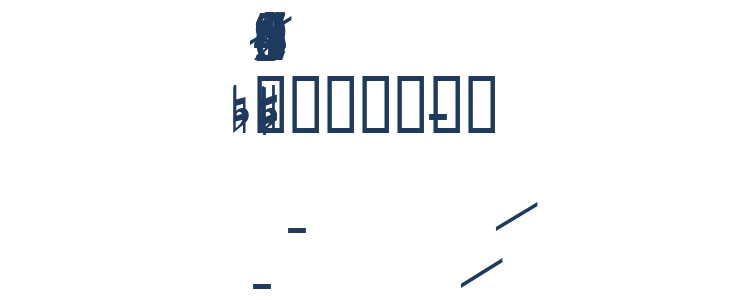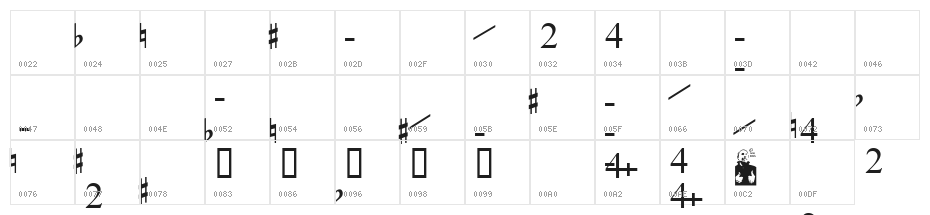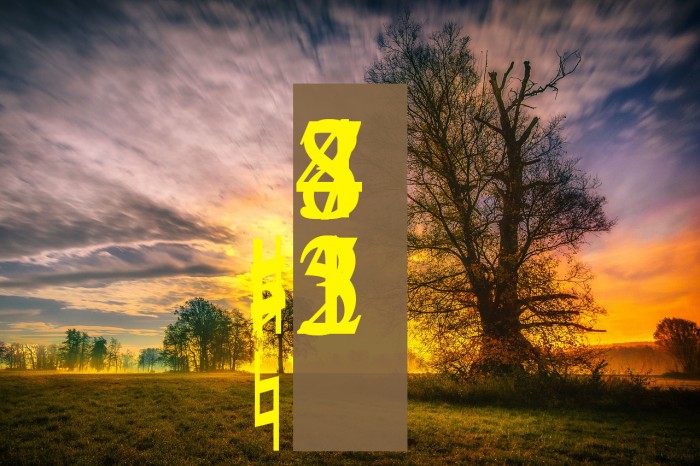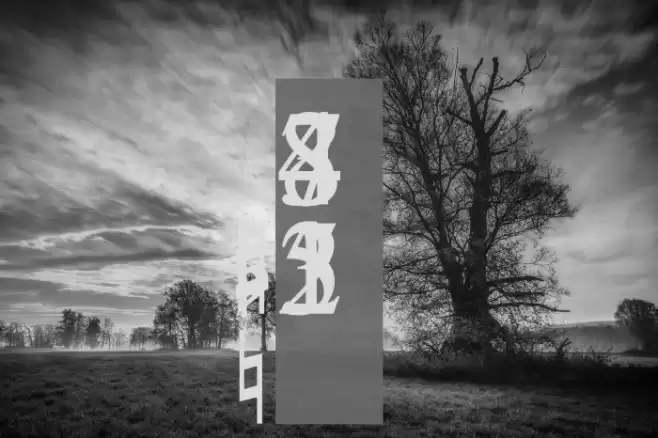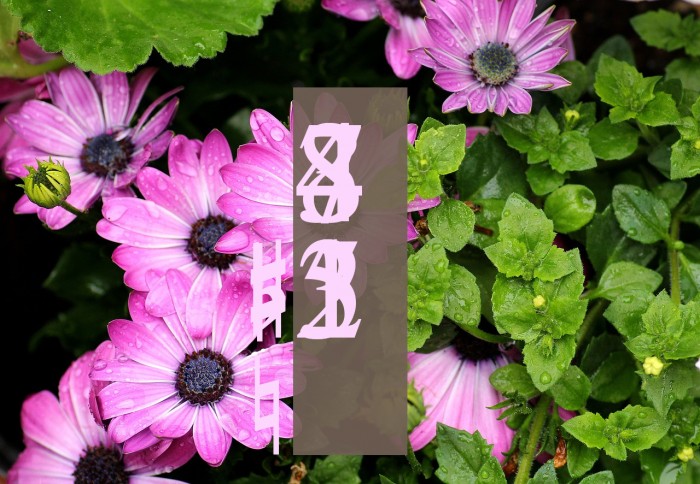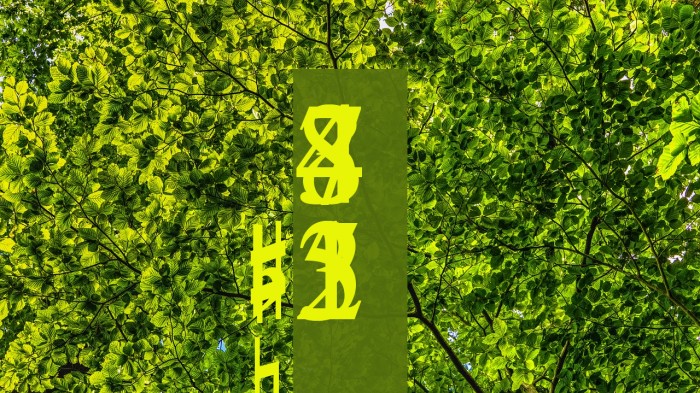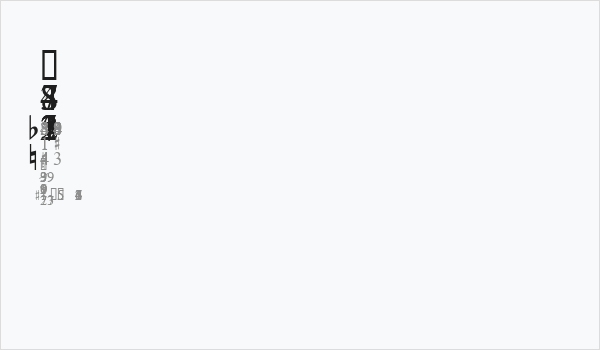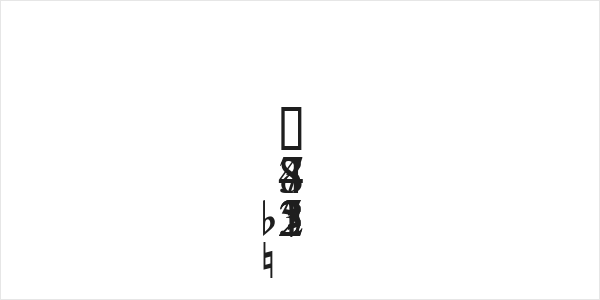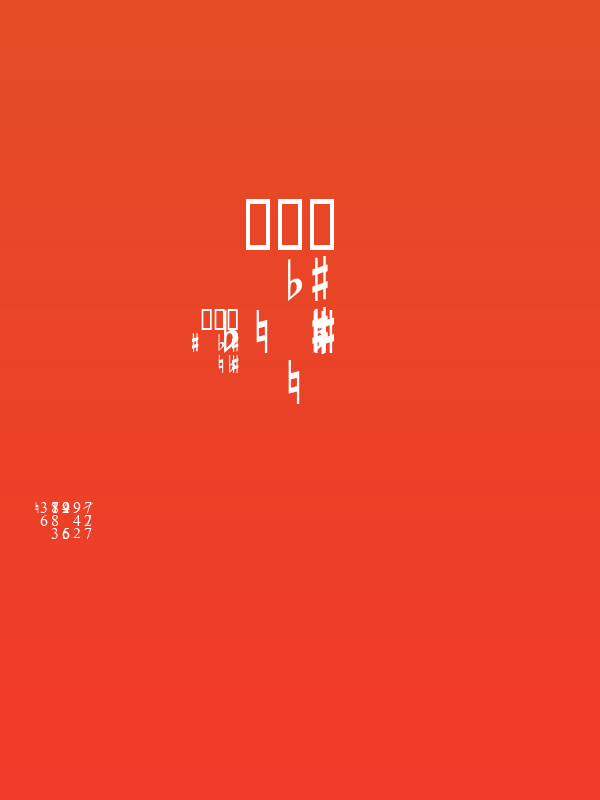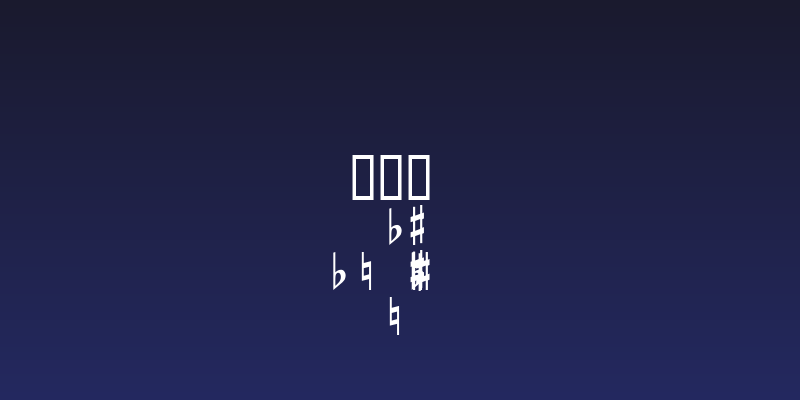
FiguredBassMH Font
FiguredBassMH Description
This font is designed specifically for musical notation, particularly for figured bass. It features a combination of numbers and musical symbols that are essential for this type of notation. The characters are bold and clear, ensuring readability even at smaller sizes. The numbers are slightly stylized to fit within the context of musical scores, with a classic and functional appearance. The symbols are precise and well-defined, making them suitable for professional music engraving. This font is not intended for general text use but is highly specialized for its purpose.
| Use Case | Musical notation |
| Proposed Projects | Ideal for music notation software, educational materials for music theory, and professional sheet music publishing. |